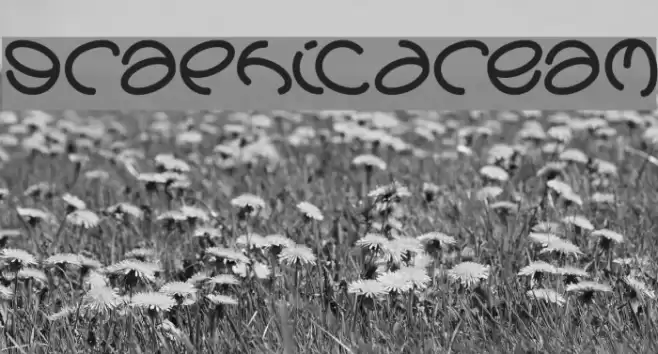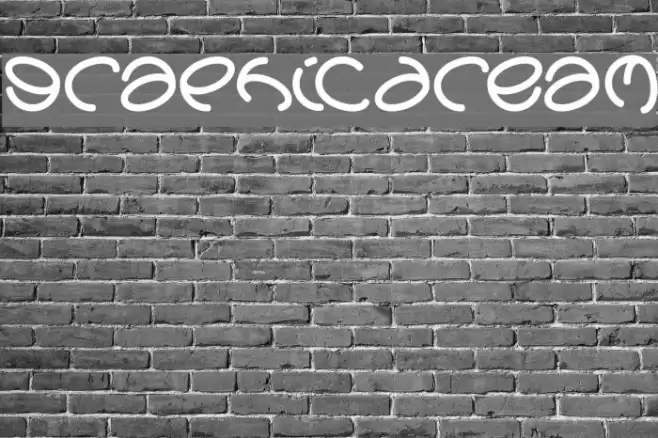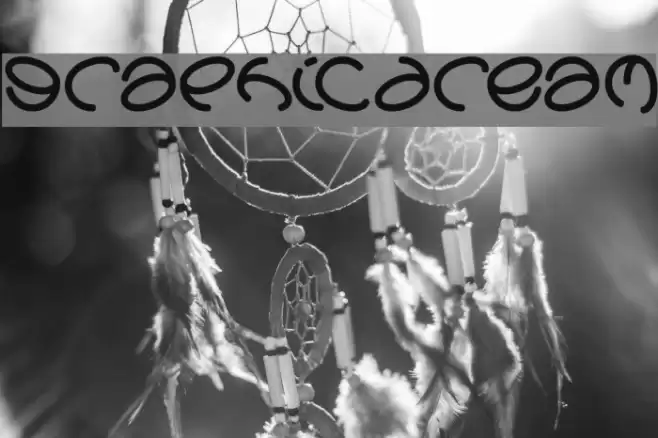
graphicdream Font
graphicdream Description
This font features a unique, decorative style with a futuristic and abstract appearance. The characters are composed of smooth, continuous curves and loops, creating a sense of fluidity and motion. The design is highly stylized, with each letterform exhibiting a distinct, artistic flair. The font maintains a consistent stroke width throughout, contributing to its cohesive look. Its unconventional shapes make it stand out, offering a modern and creative aesthetic that is both eye-catching and memorable.
A decorative, futuristic font with smooth, continuous curves and abstract shapes from Uncategorized fonts.
- Proposed Projects: Ideal for sci-fi themed projects, modern art posters, creative branding, and unique logo designs.
- Overall Style: Modern, Decorative
- Use Case: Logos, Posters, Branding